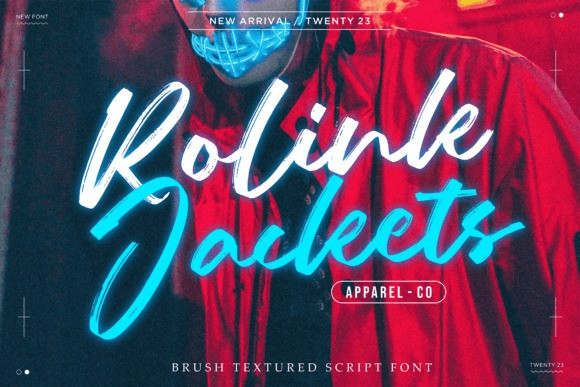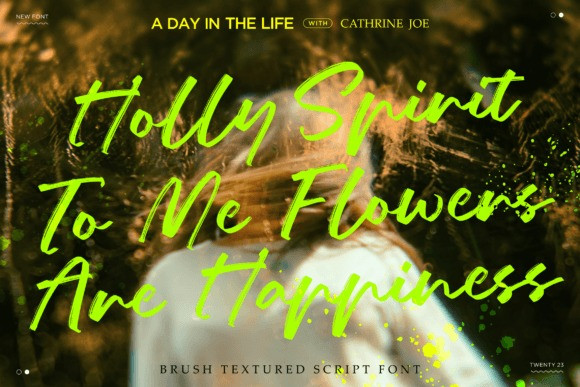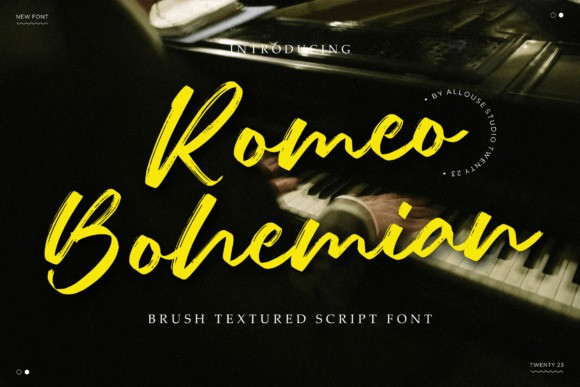
Romeo Bohemian Font
Romeo Bohemian Font A Brush Textured Script Font. Romeo Bohemian is perfect for product packaging, branding project, magazine, social media, weddings, or just used to express words above the background.